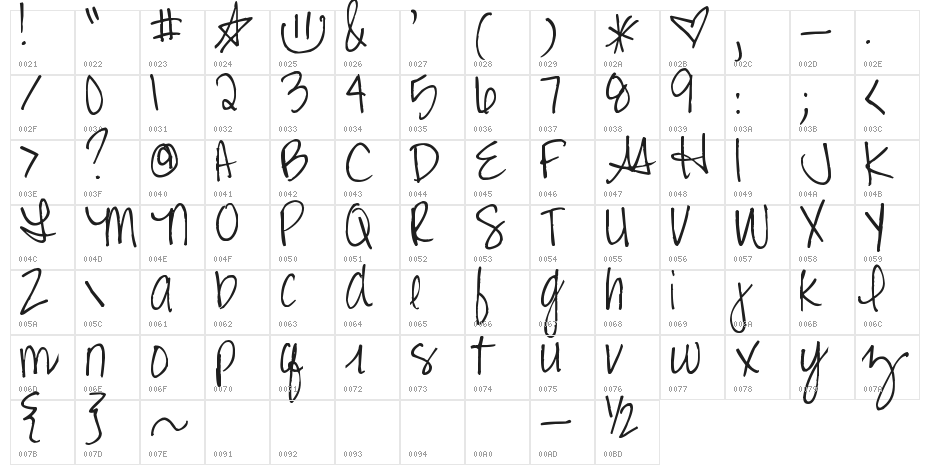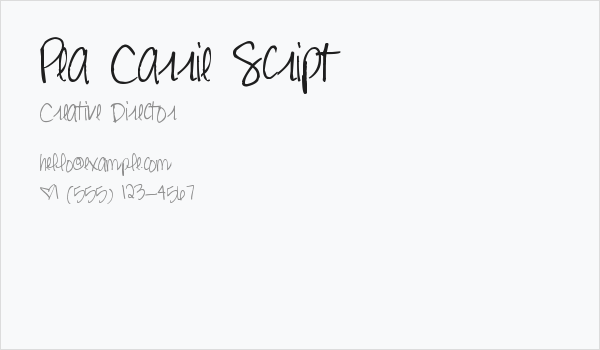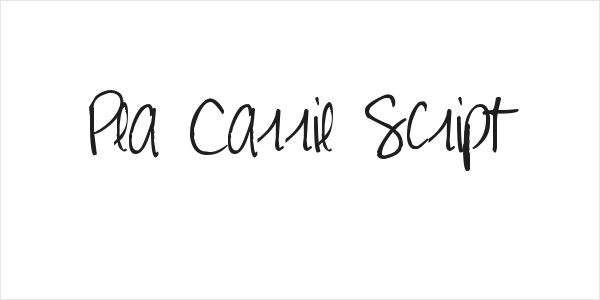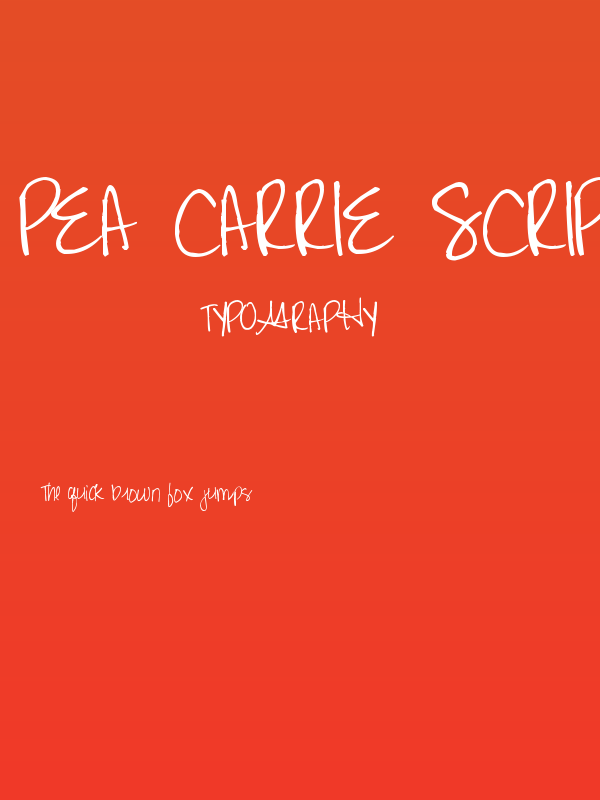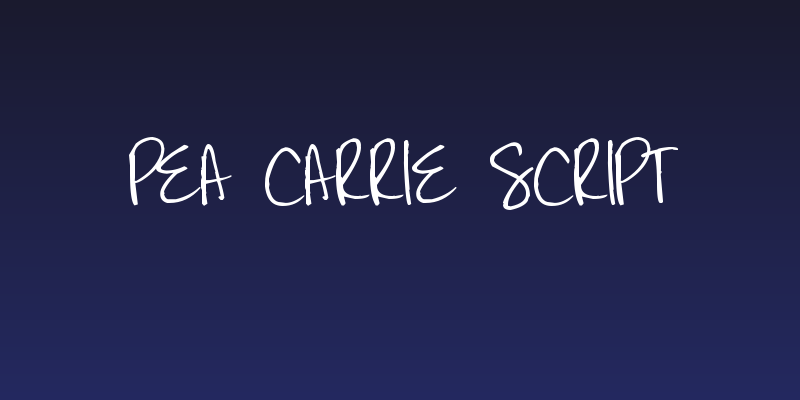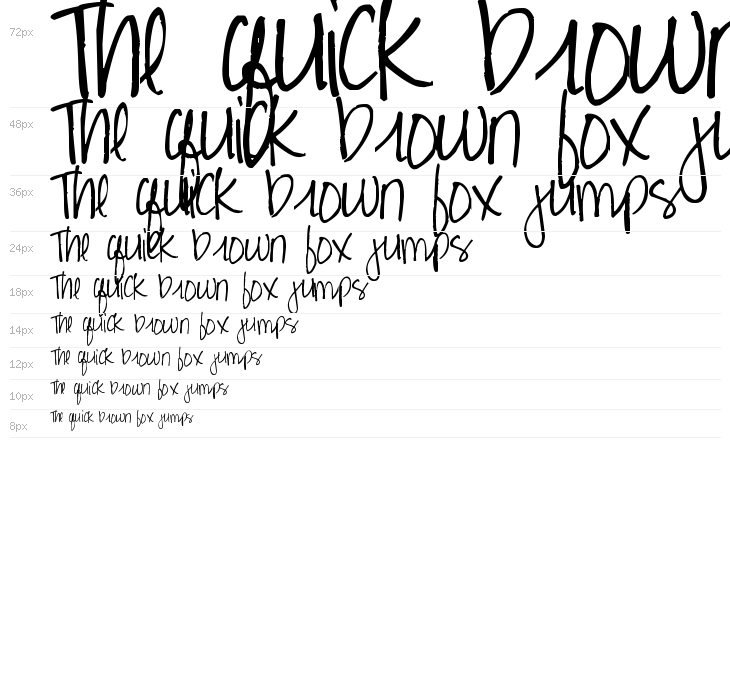
Pea Carrie Script Font
Pea Carrie Script Description
This font features a playful and casual handwritten style, characterized by its loose and flowing script. The letters are unevenly sized, adding a dynamic and informal feel to the text. The strokes are bold and confident, with a slight slant that enhances its handwritten appearance. The uppercase and lowercase letters maintain a consistent style, while the numerals and special characters complement the overall aesthetic. This font exudes a personal and approachable vibe, making it suitable for projects that require a touch of personality and warmth.
| Proposed Projects | Ideal for greeting cards, personal invitations, casual branding, and social media graphics. |